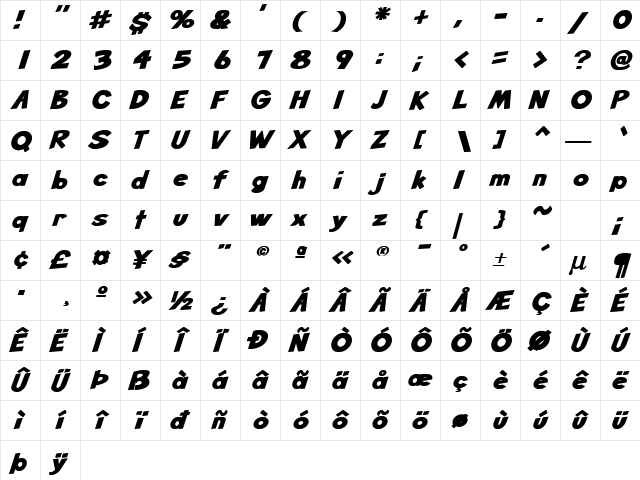
Mettler-BoldIta Normal
Design Context for Mettler-BoldIta Typeface
Mettler-BoldIta takes a measured approach to typography — its balanced proportions and neutral character make it a reliable workhorse for both digital and print work. The heavy weight commands attention and anchors typographic hierarchies.